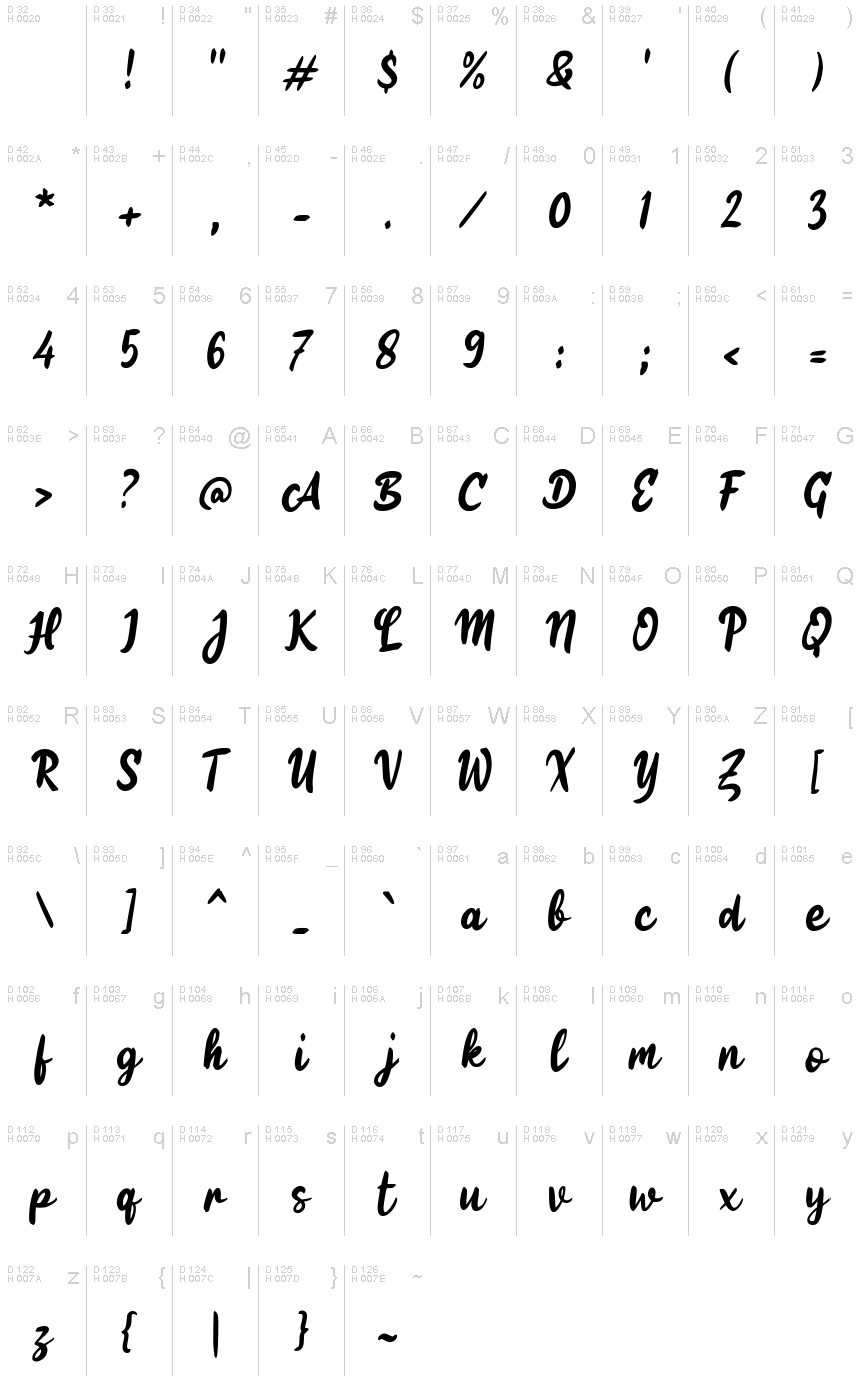
Galunggung Script
Galunggung Script font, designed by wep, captivates with its fluid brush style, evoking a sense of artistry and elegance. This free font is perfect for projects that seek a personal touch and dynamic flair. Its bold strokes and smooth curves offer a striking presence, making it ideal for eye-catching headlines, invitations, and creative branding endeavors.
The Galunggung Script's aesthetic blends traditional brush techniques with modern design sensibilities, creating an adaptable typeface suitable for various contexts. Its unique charm enhances wedding stationery and adds personality to digital graphics alike.